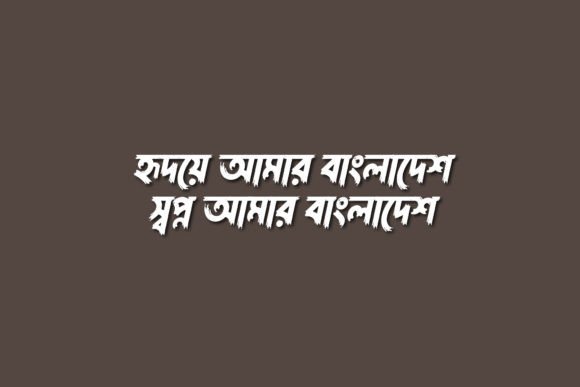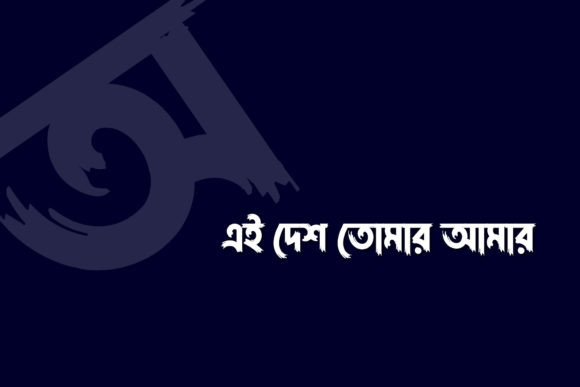
Introduction to Chitro Bangla (চিত্র বাংলা ফন্ট) Font
Chitro Bangla stands as a versatile sans-serif Gothic font, epitomizing contemporary excellence, making it an excellent choice for various creative projects such as book covers, T-shirts, and movie titles.
Its extensive repertoire of 420 glyphs and 196 distinct characters opens up a boundless realm of creative possibilities, ensuring that your design endeavors are limited only by your imagination .
Key Features of Chitro Bangla (চিত্র বাংলা ফন্ট) Font
Why Choose Chitro Bangla (চিত্র বাংলা ফন্ট) Font?
Chitro Bangla (চিত্র বাংলা ফন্ট) Font offers exceptional quality and versatility, making it a valuable addition to your design toolkit. Whether you’re creating for personal projects or commercial use, Chitro Bangla (চিত্র বাংলা ফন্ট) Font delivers professional results.